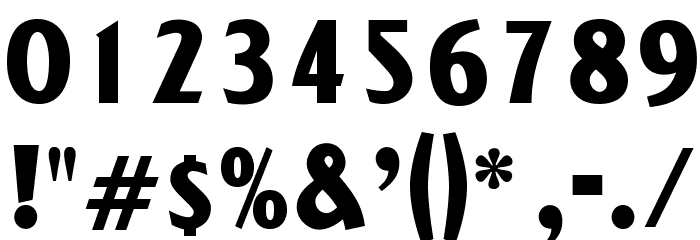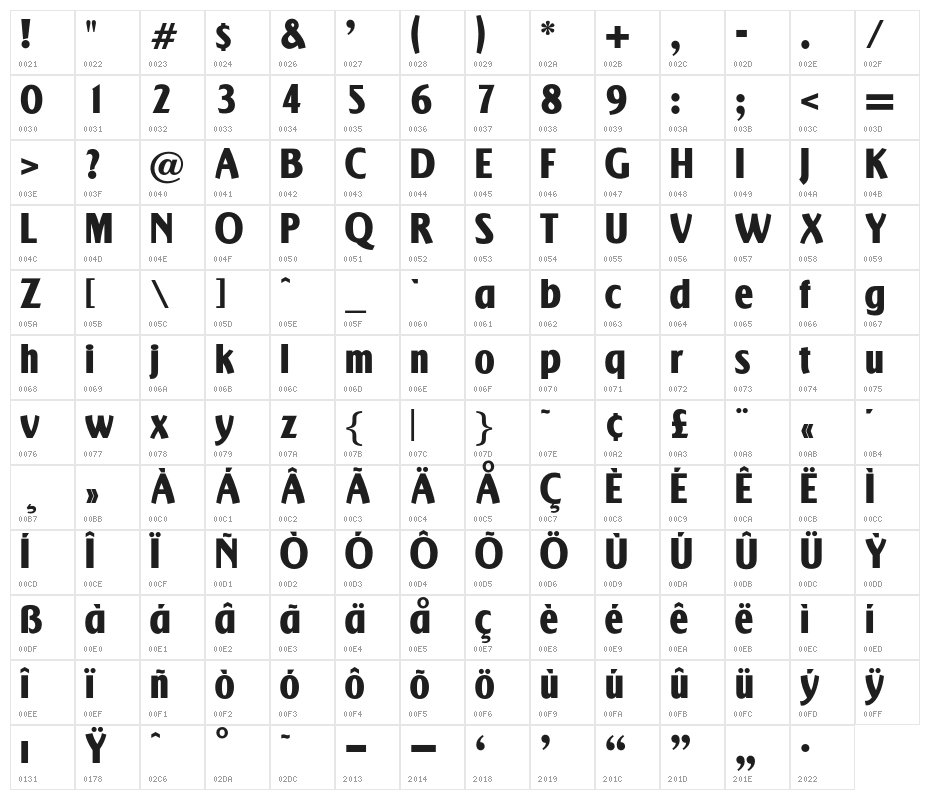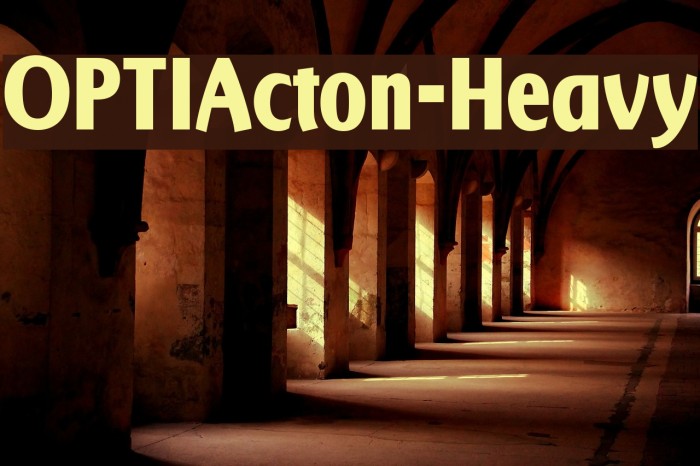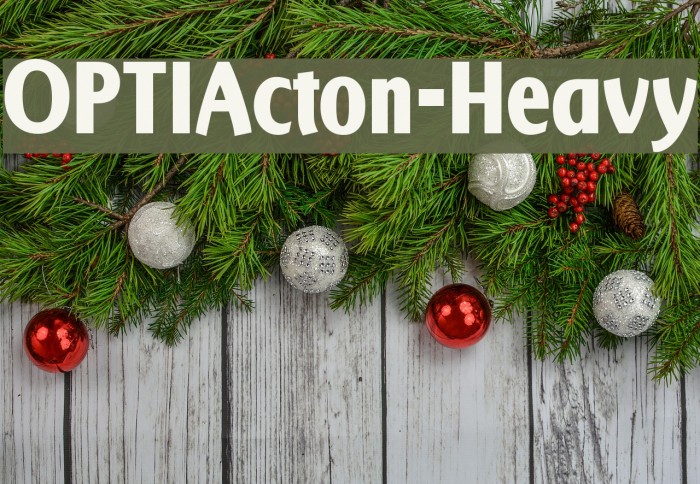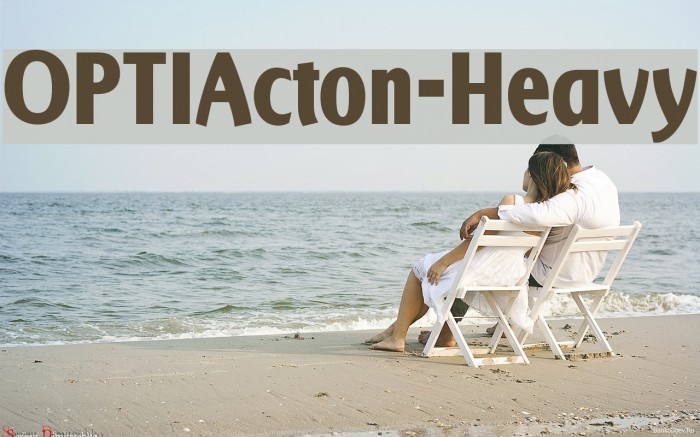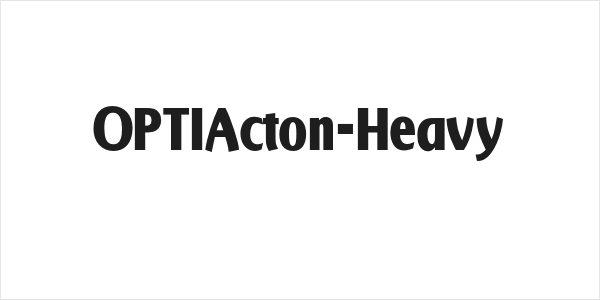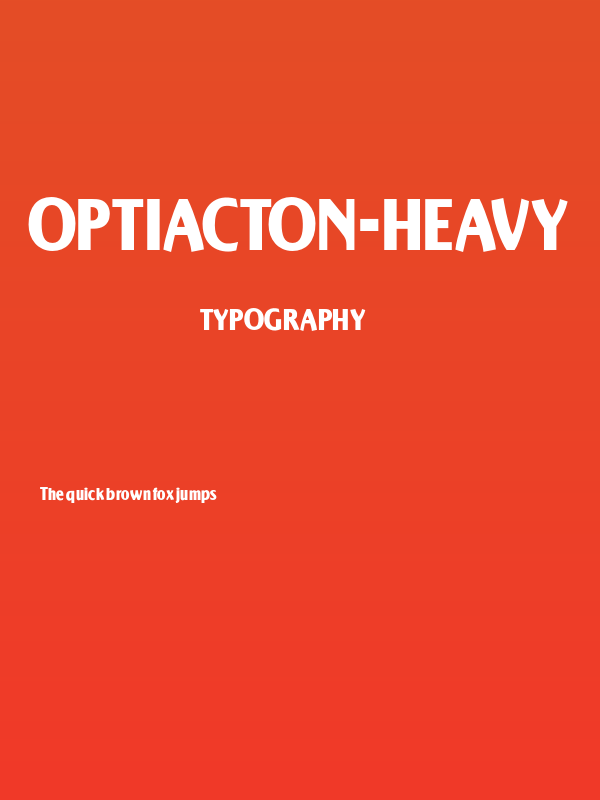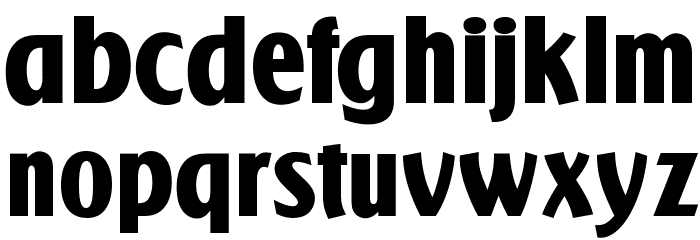
OPTIActon-Heavy Font
This font is a bold and impactful typeface with a strong presence. The characters are thick and robust, making it ideal for grabbing attention. The uppercase letters are slightly condensed, while the lowercase letters maintain a consistent weight, providing a harmonious balance. The numerals are clear and easy to read, and the special characters are well-integrated, ensuring versatility in various design contexts. The overall design is modern and assertive, suitable for projects that require a strong visual statement.
| Proposed Projects | Ideal for headlines, posters, branding, and advertising where a strong visual impact is needed. |